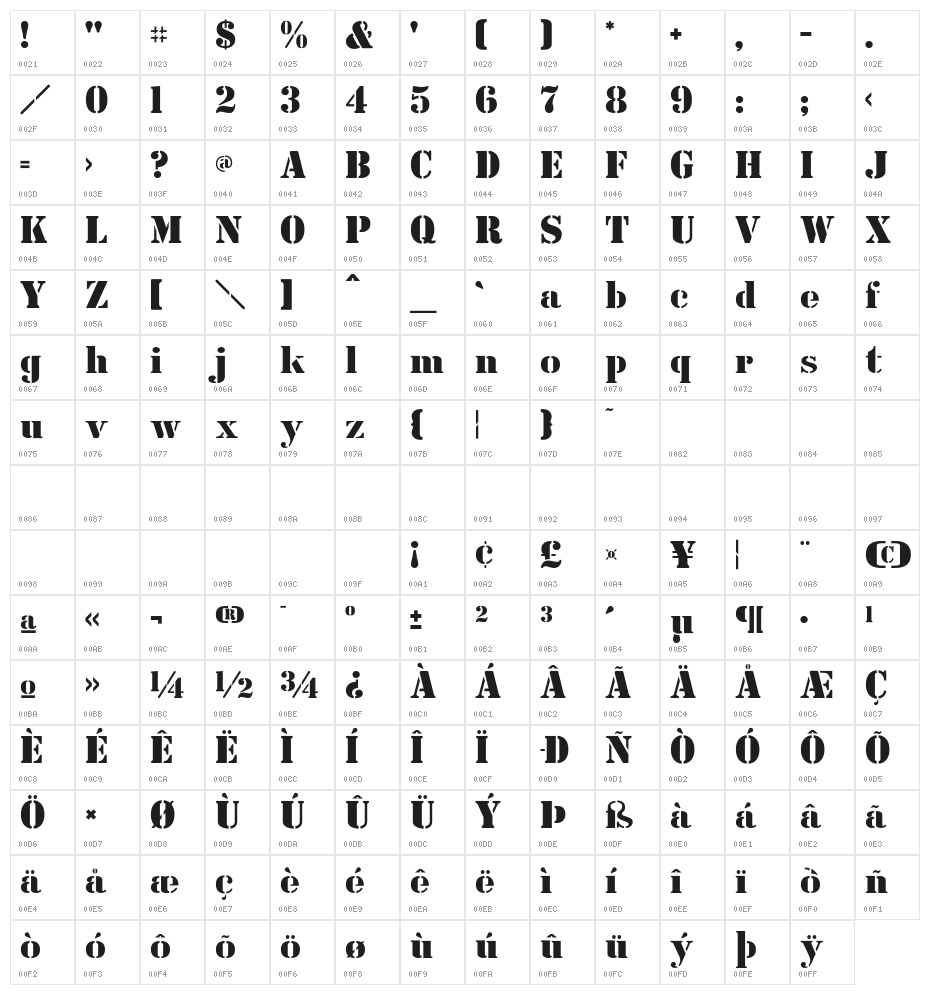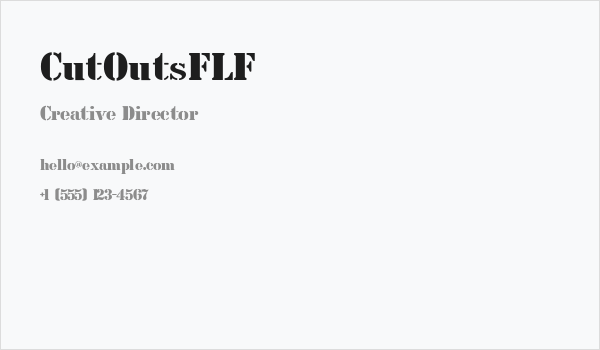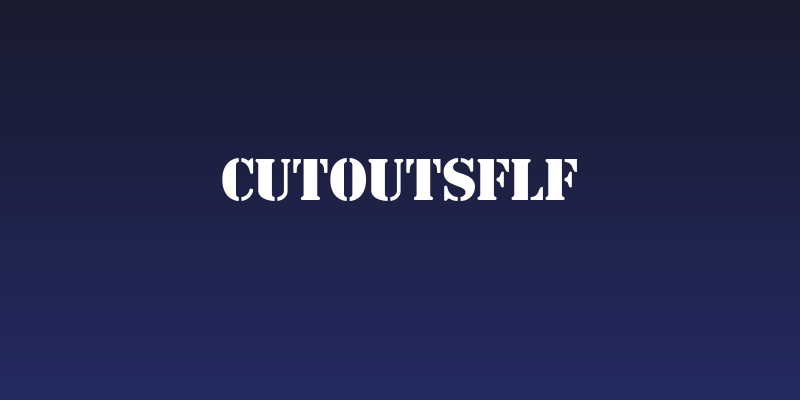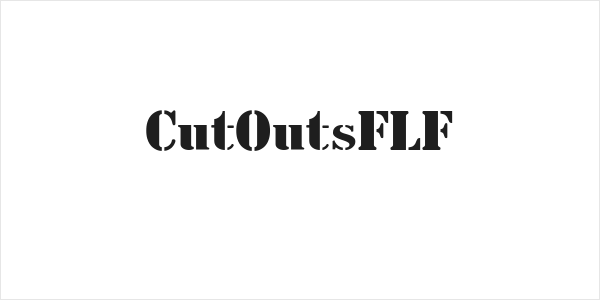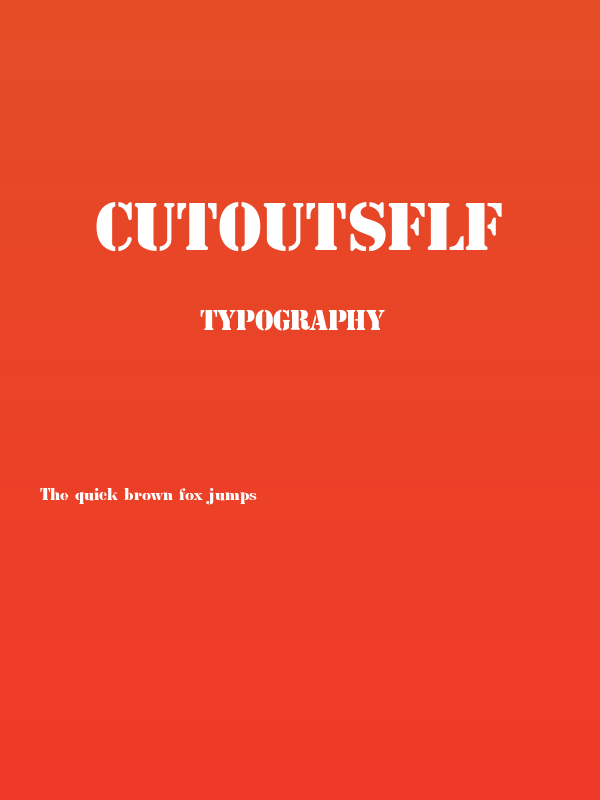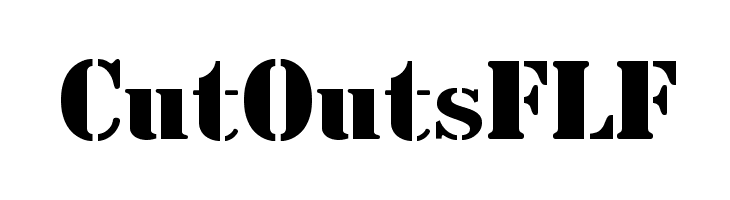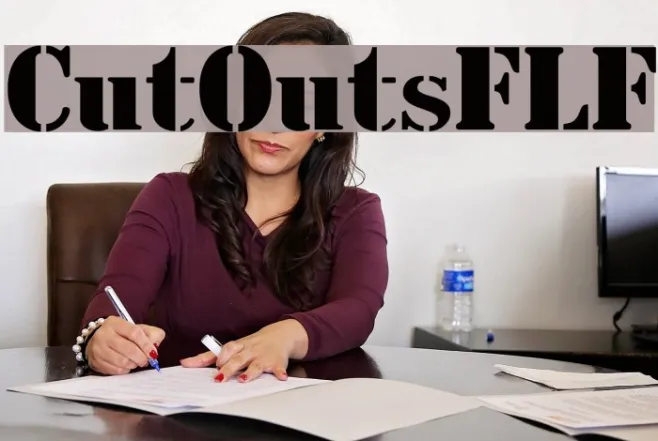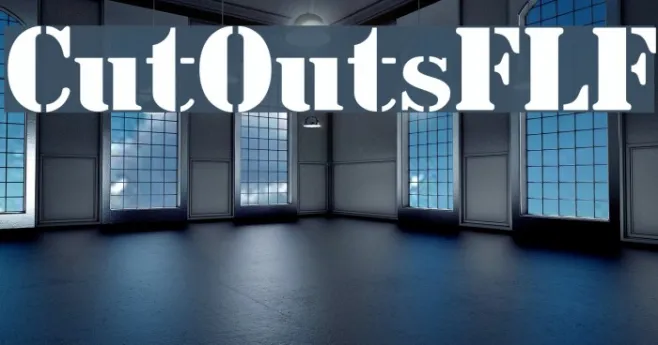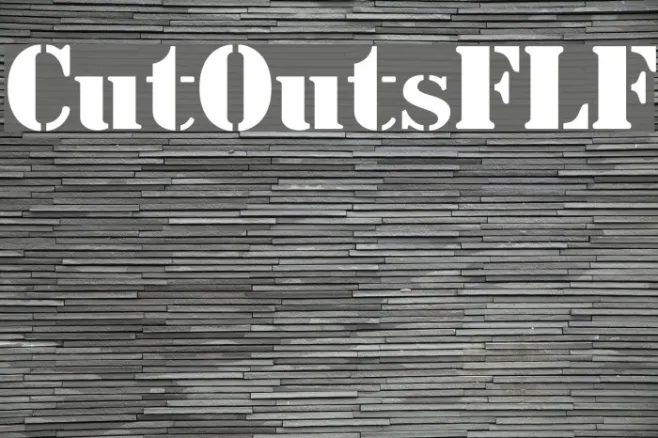
CutOutsFLF Font
CutOutsFLF Description
This font features a bold and striking design with a stencil-like appearance. The characters are defined by thick, solid strokes with distinct cut-out sections, giving it a unique and industrial feel. The uppercase and lowercase letters maintain a consistent style, with sharp angles and clean lines. Numbers and special characters follow the same bold and impactful design, ensuring uniformity across all elements. The font's strong presence makes it ideal for attention-grabbing designs.
| Overall Style | Modern, Industrial |
| Proposed Projects | Ideal for posters, signage, branding, and any project requiring a bold, industrial aesthetic. |